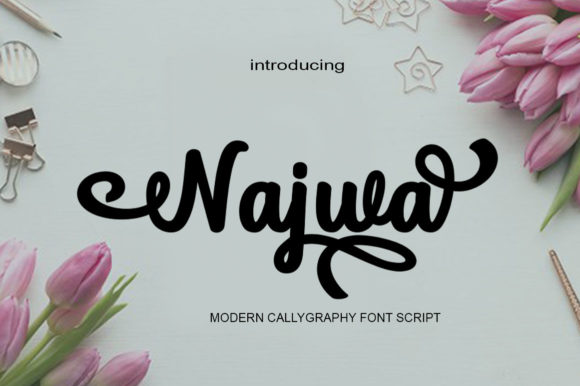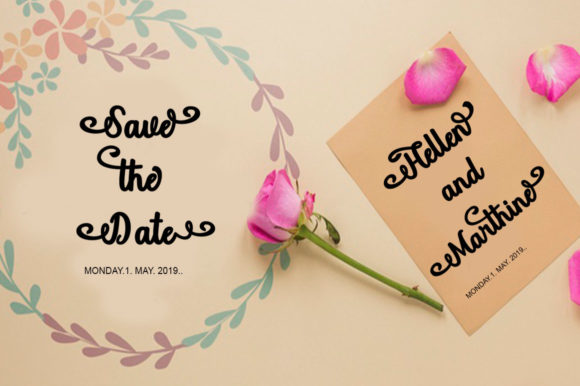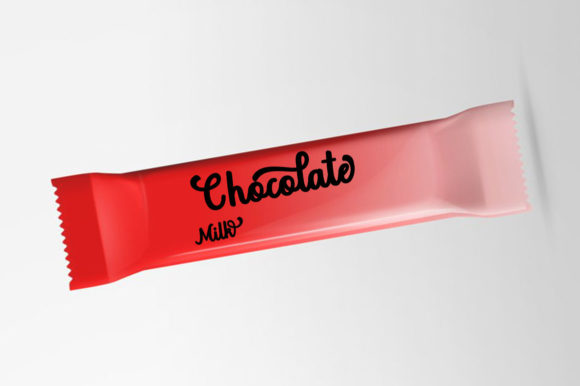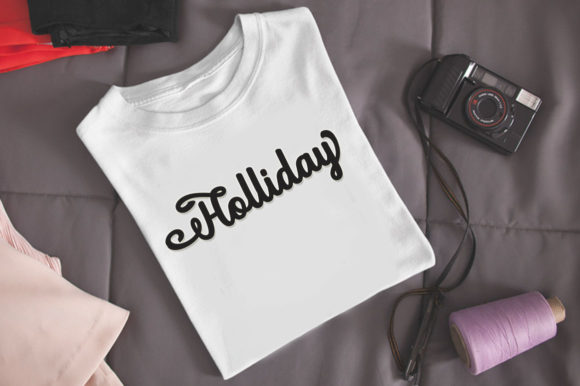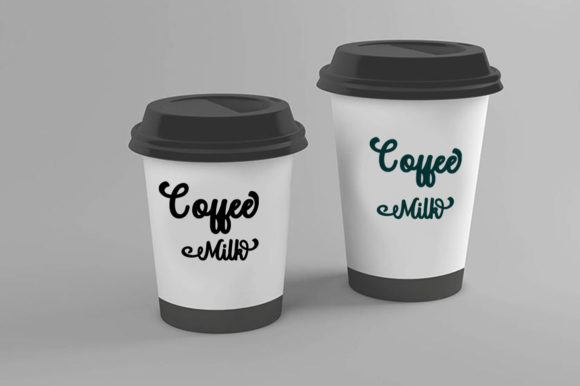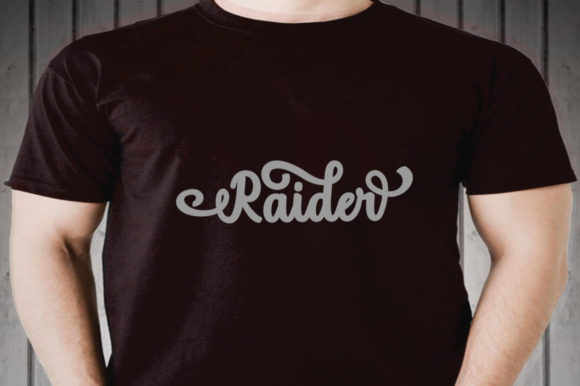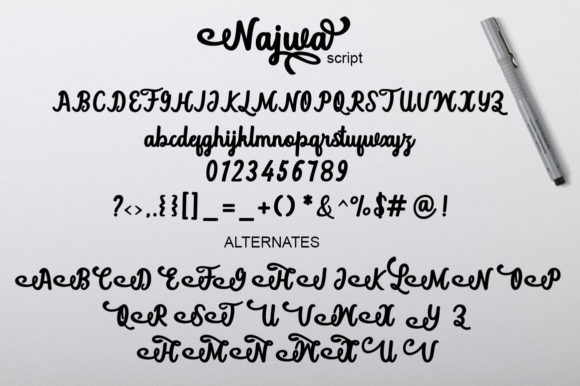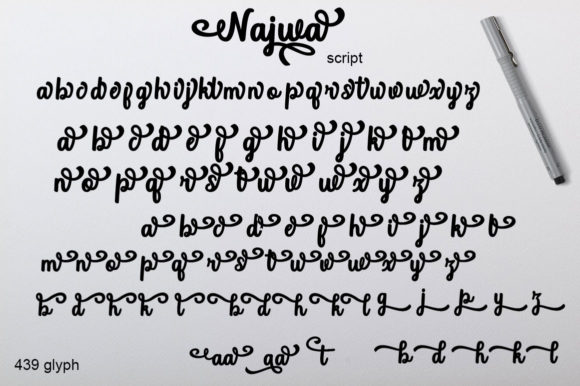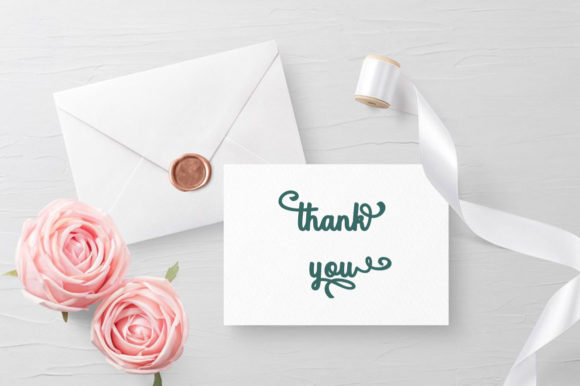
HomeScript FontsNajwa Font Script Fonts Najwa Font FacebookXPinterestWhatsApp Najwa Font Poster 2 Najwa Font Poster 3 Najwa Font Poster 4 Najwa Font Poster 5 Najwa Font Poster 6 Najwa Font Poster 7 Najwa Font Poster 8 Najwa Font Poster 9 About Najwa Font Inspired by classic calligraphy, Najwa is a beautiful and bold handwritten script with lots of personality! DOWNLOAD NOW People also explored Undine Soul Font Currators Script Font Unicorn Love Font Pring Petung Font FT Brush Dark Night Font Polynesian Tourist Moonlite Font Girly Minnie Font 318 0 TagsNajwa Font Previous articleLarissa Duo FontNext articleAladina Font LEAVE A REPLY Cancel reply Comment: Please enter your comment! Name:* Please enter your name here Email:* You have entered an incorrect email address! Please enter your email address here Website: Save my name, email, and website in this browser for the next time I comment. Personal Use Free Carved Wood Personal Use Free Read more about this font Engine Personal Use Free Read more about this font Sushi Stroke Personal Use Free Read more about this font Reztop Personal Use Free Read more about this font BLOG Using Fonts in Digital Marketing: Tips to Strengthen Your Brand Identity In the realm of digital marketing, every visual element plays a crucial role in shaping a brand's identity, and fonts are no exception. The... Best Fonts for YouTube Videos: Make Your Thumbnails Stand Out Transform Your Website: Elevate Your Typography with 7 Best Web Font Generators How to Cut Any Font on Cricut: Convert a Font to SVG (Free)